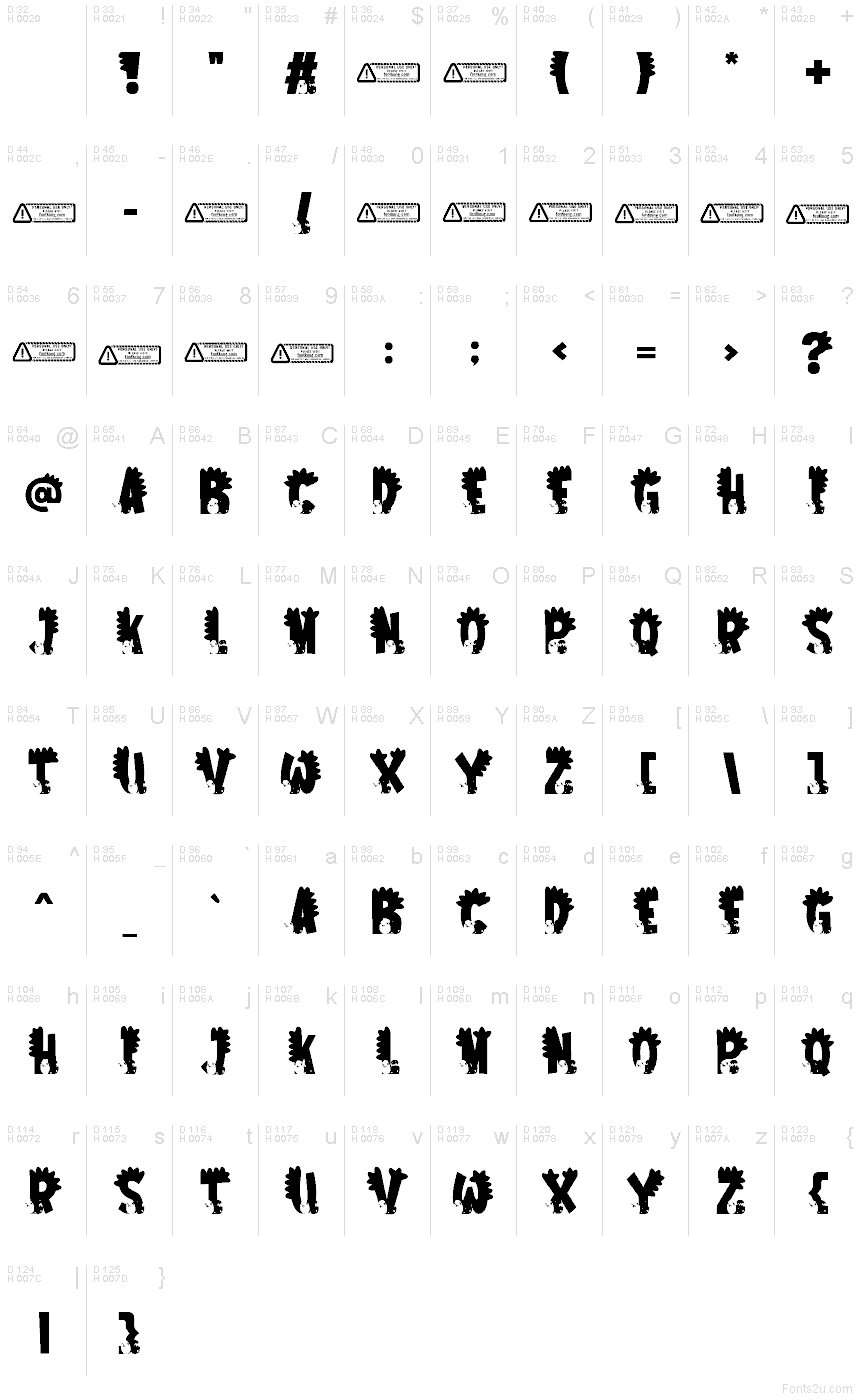
Dino Child font by Kong Font is a free decorative display font with bold, condensed characters. The font is quirky with a contemporary look due to its thematic elements and imaginative features. The typesetting is nonconforming which makes reading more fun and interesting than usual.
Use this font when writing for kids, creating brand logos, posters especially those related to dinosaurs and other animals. Scary movie posters for children would look perfect if Dino Child is included. Websites that deal with animals can also integrate the typeface in their headlines or menu items.